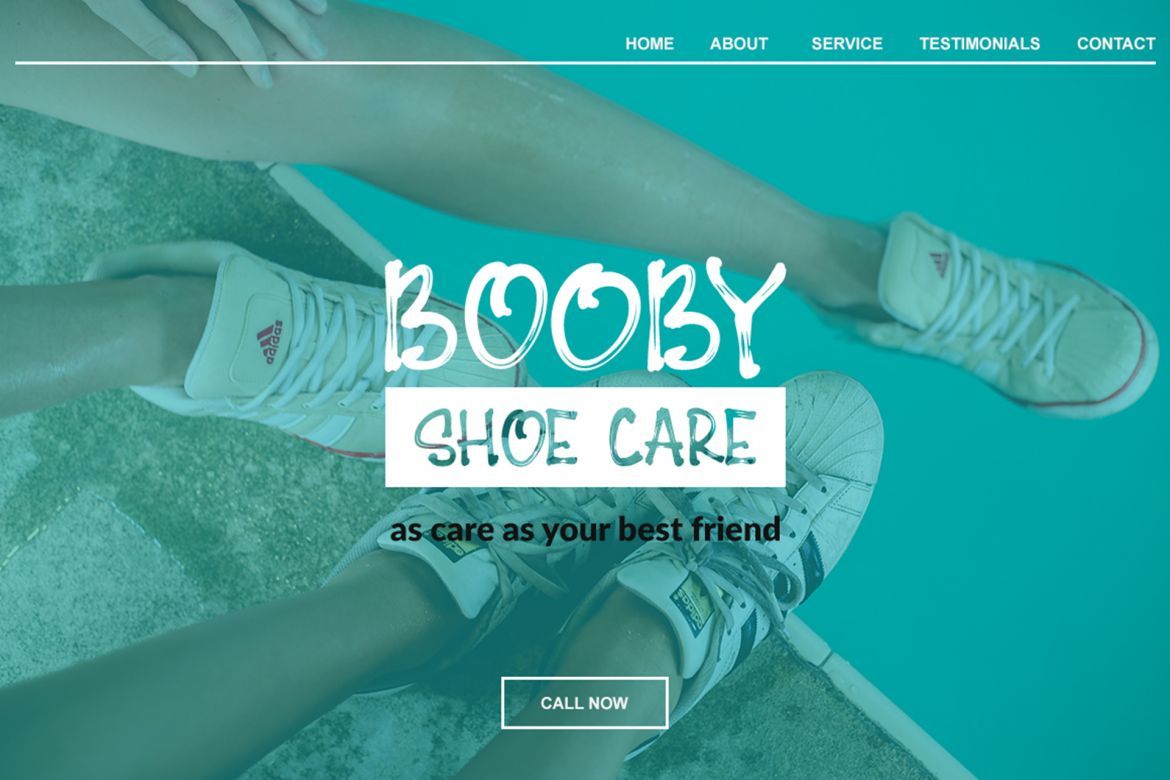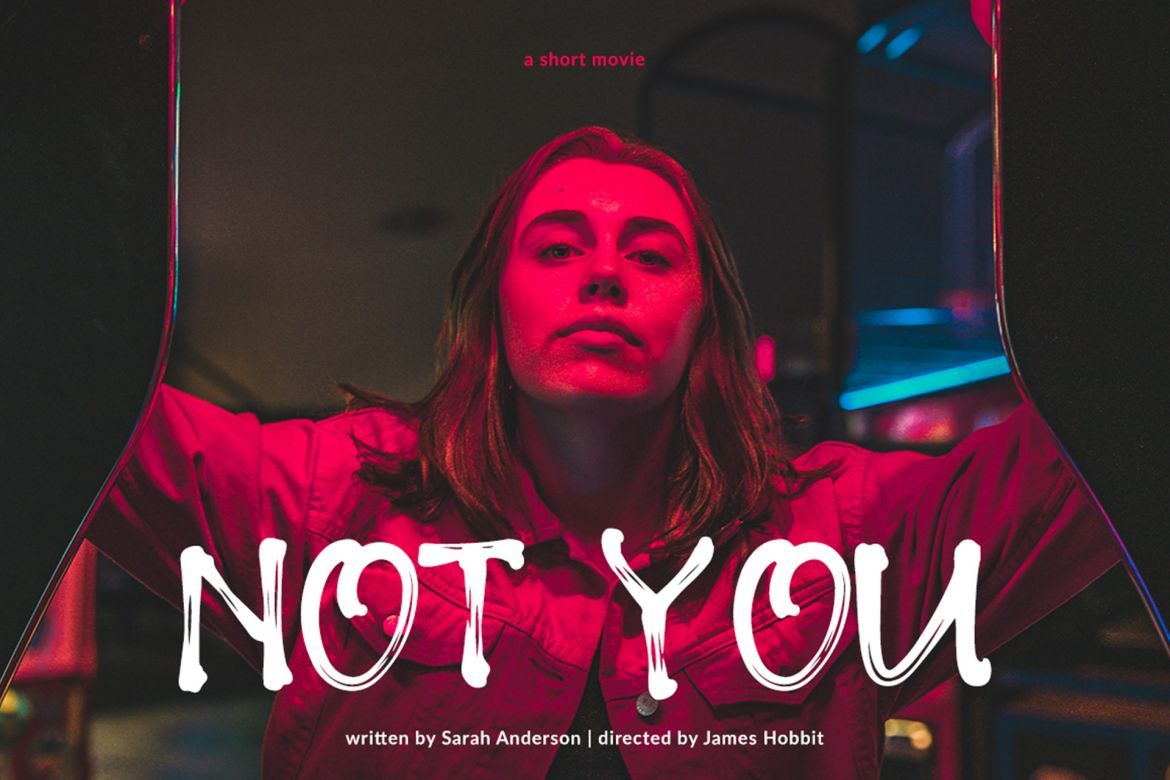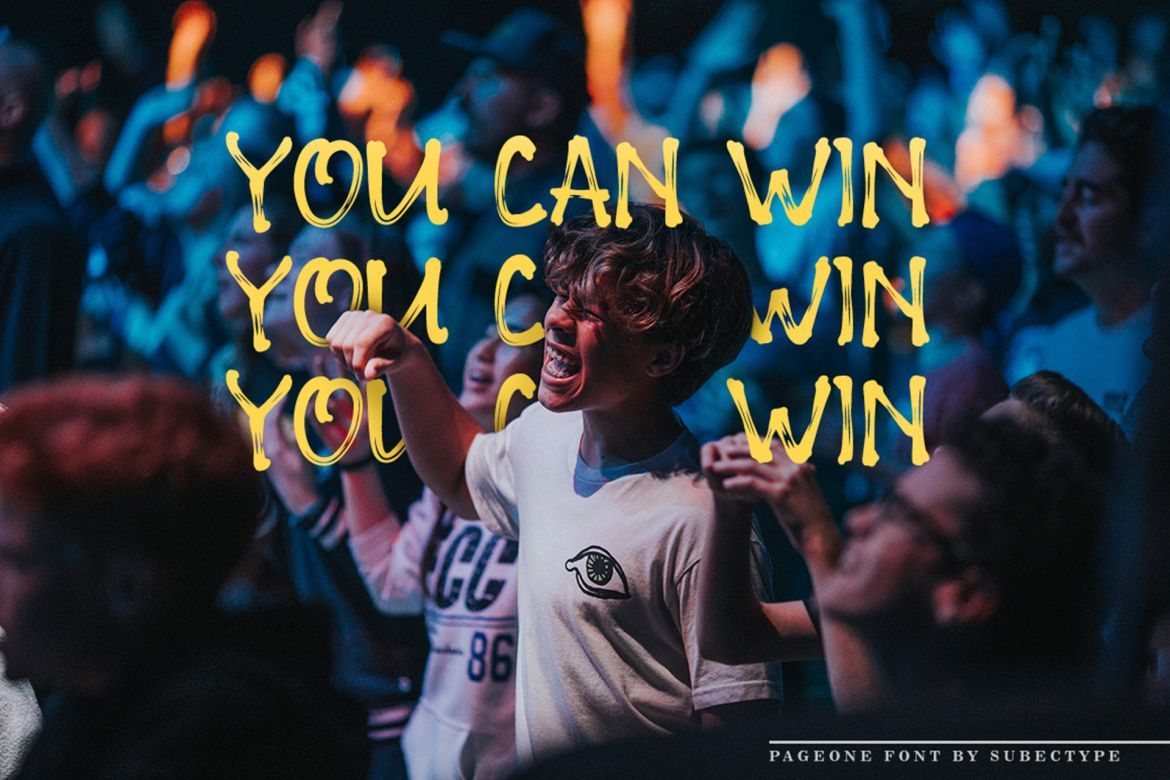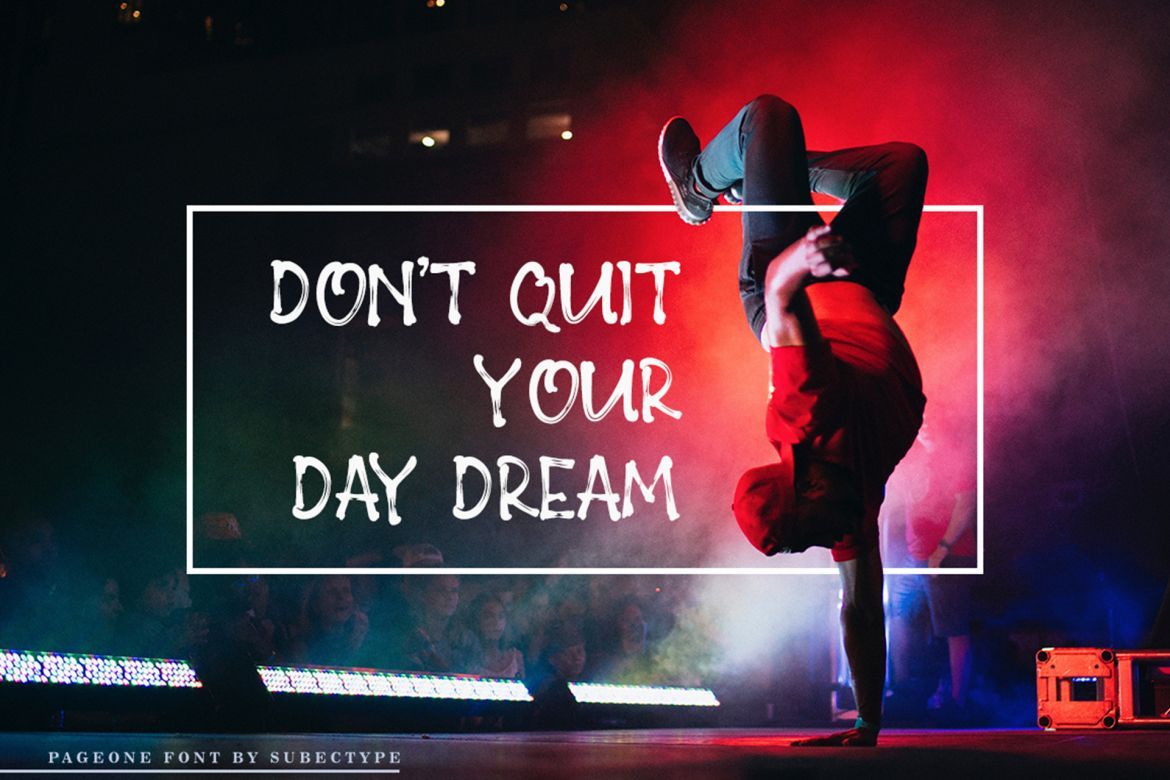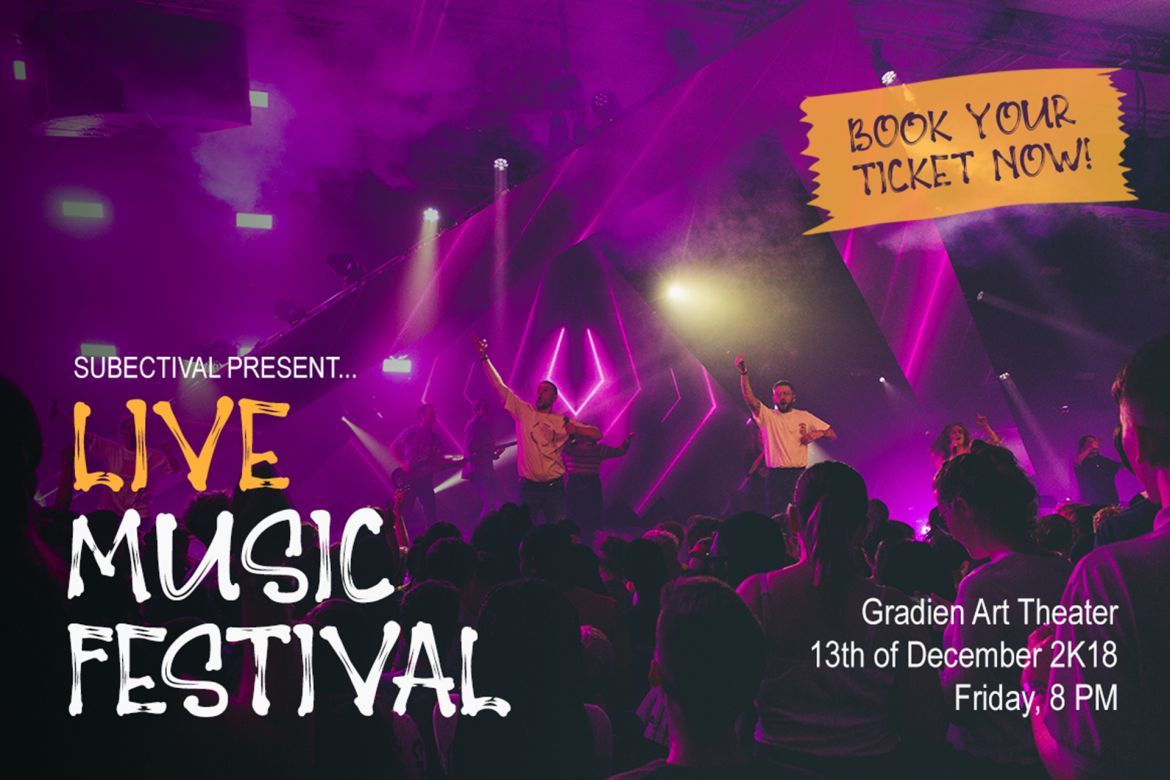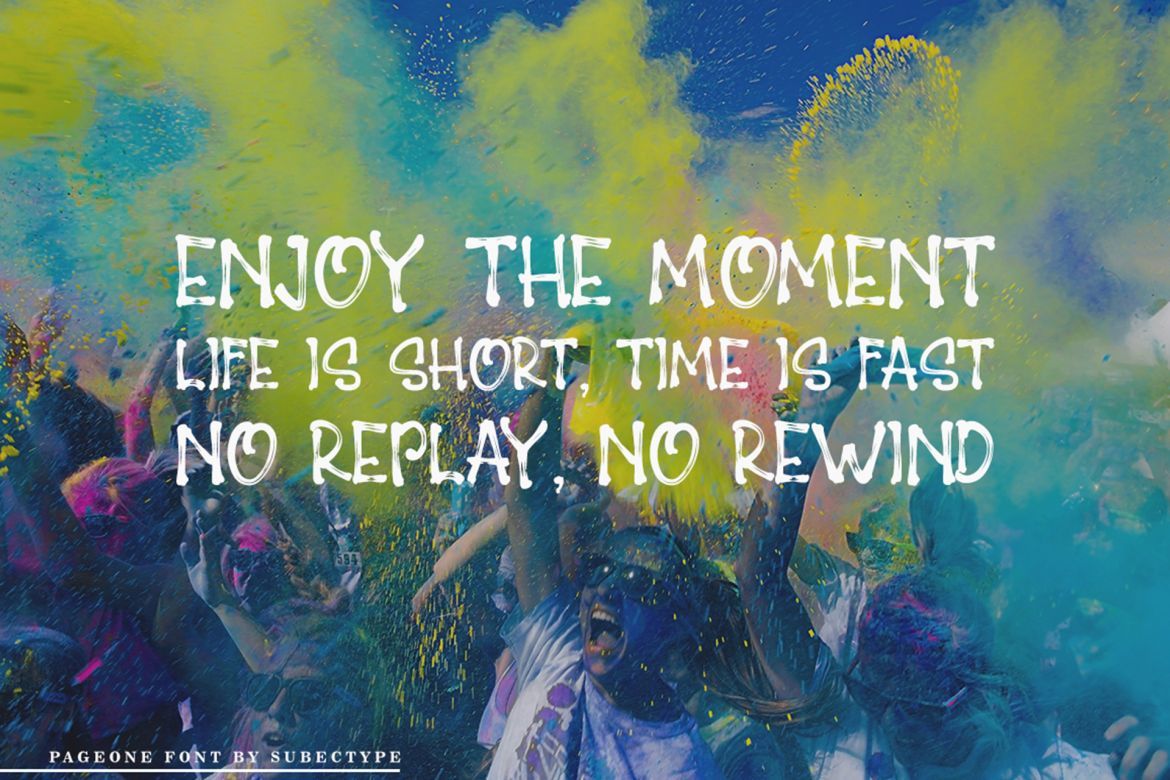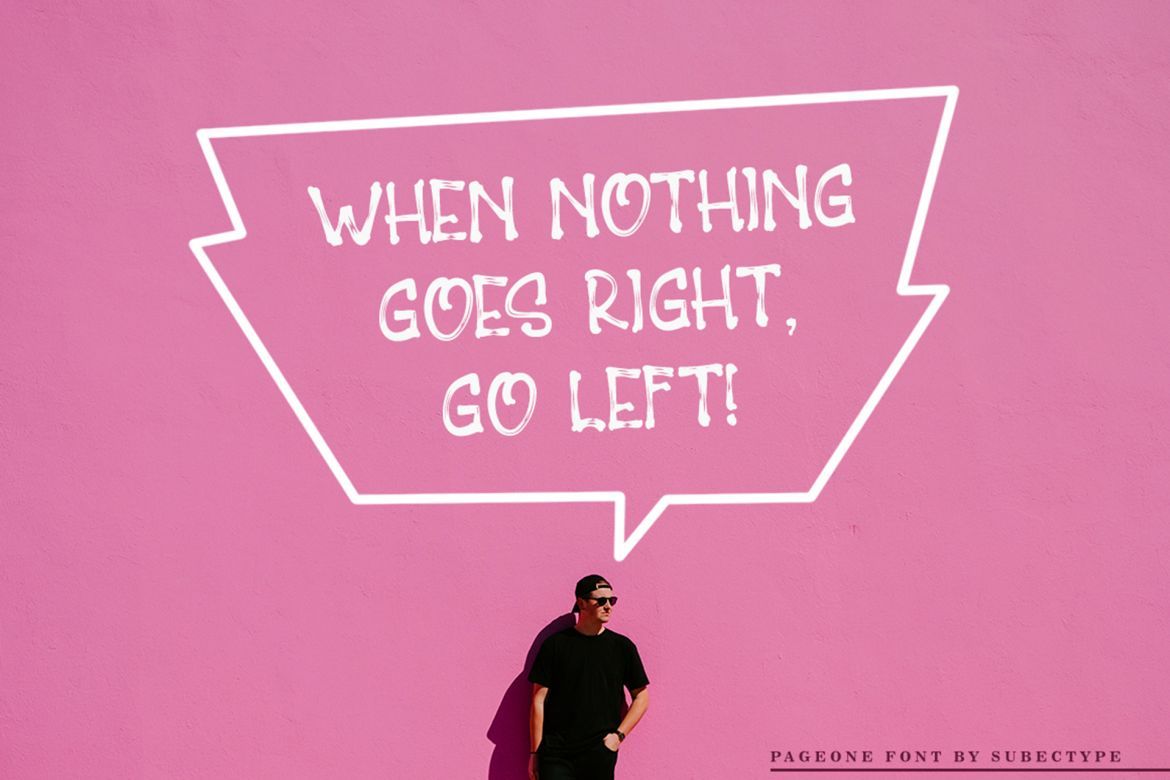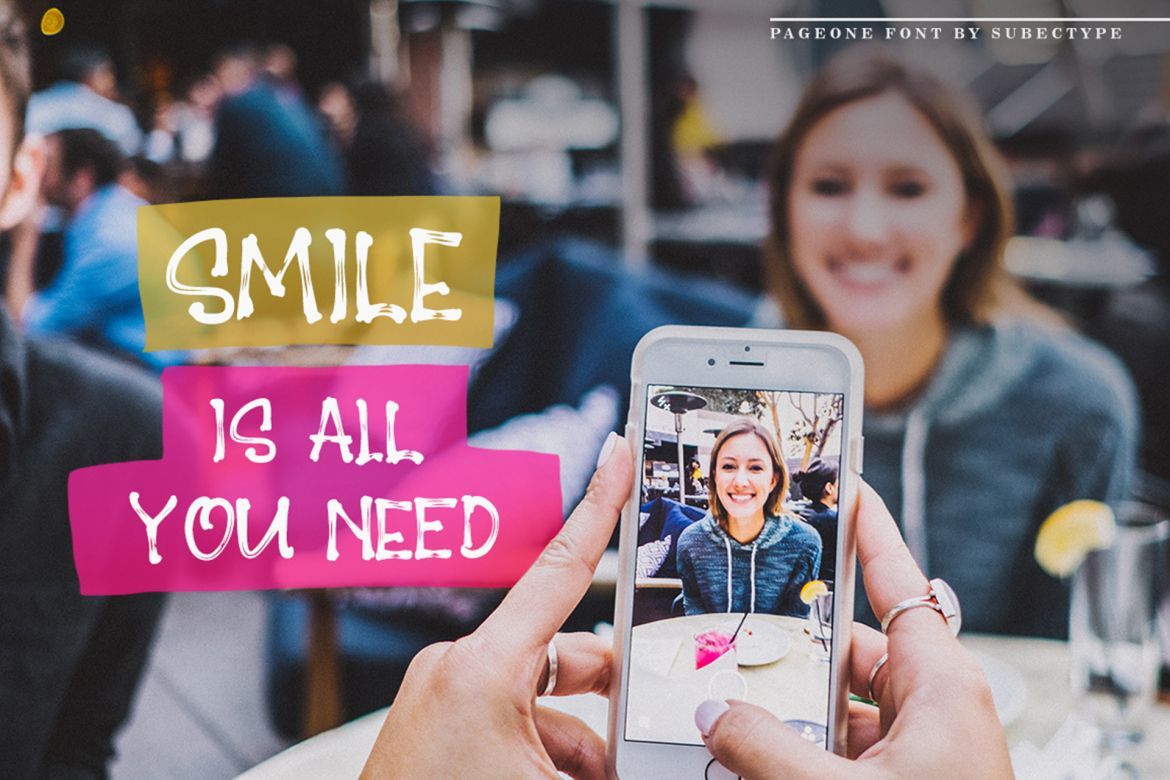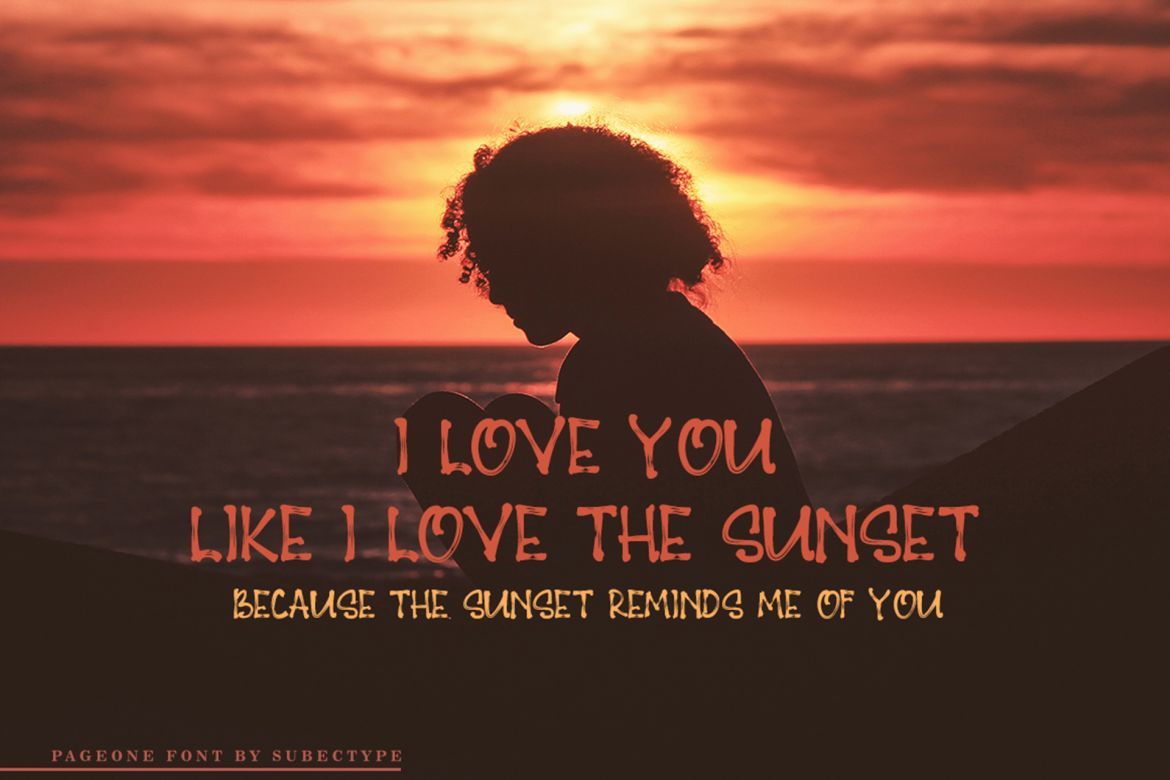
Pageone Brush Font
The Pageone is a simple but energetic brush font. It’s suitable for powerful, youthful, sporty, design themes.
• brush effect is good
• easy to use